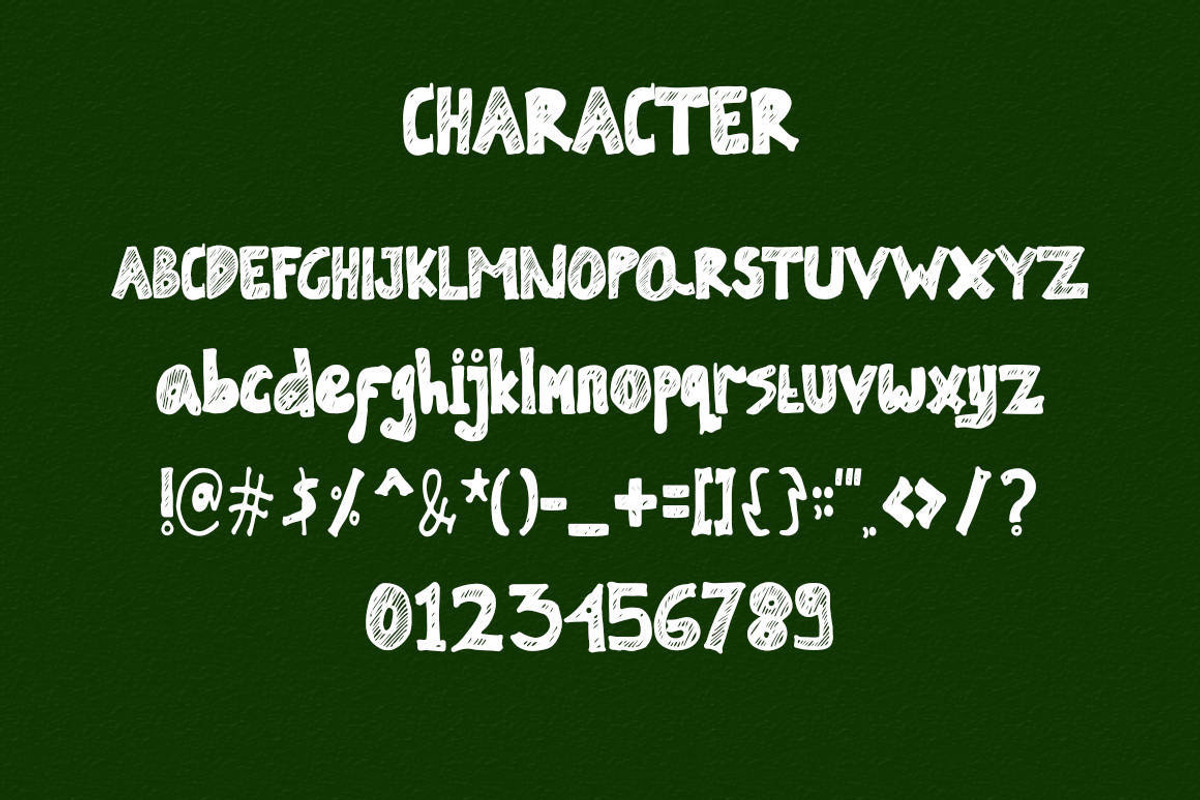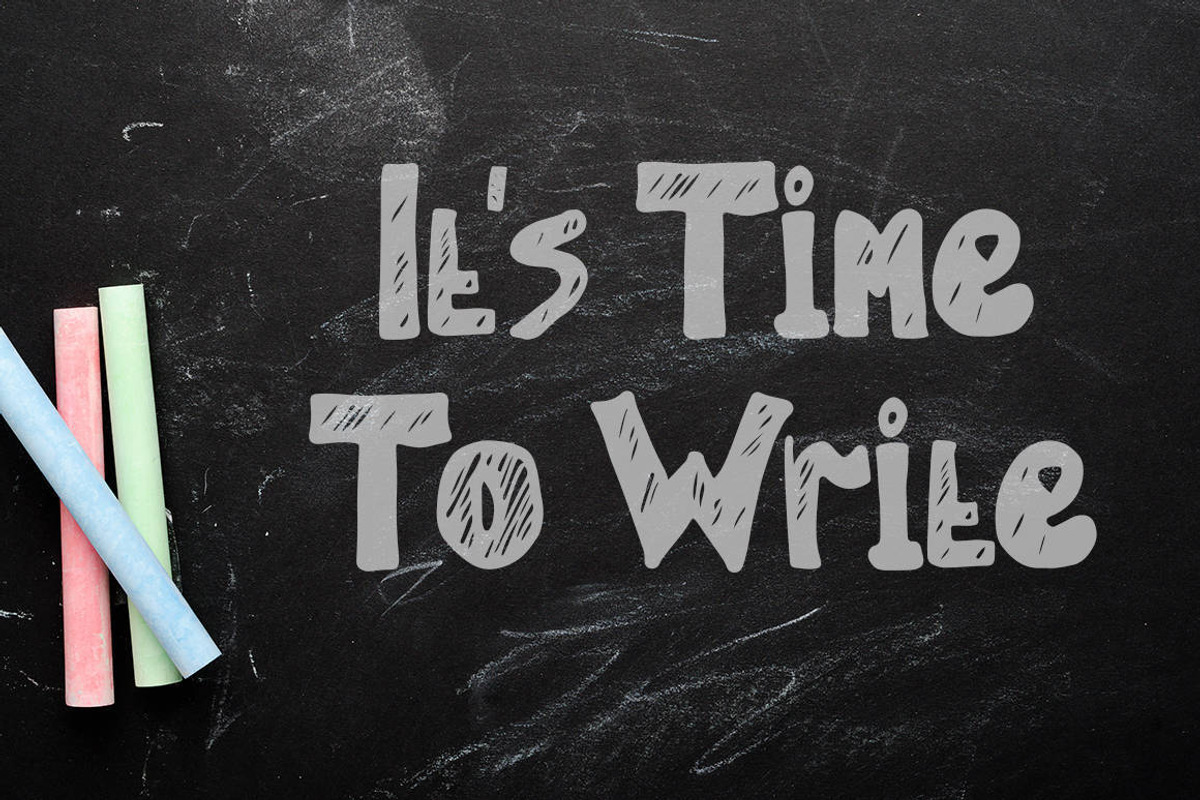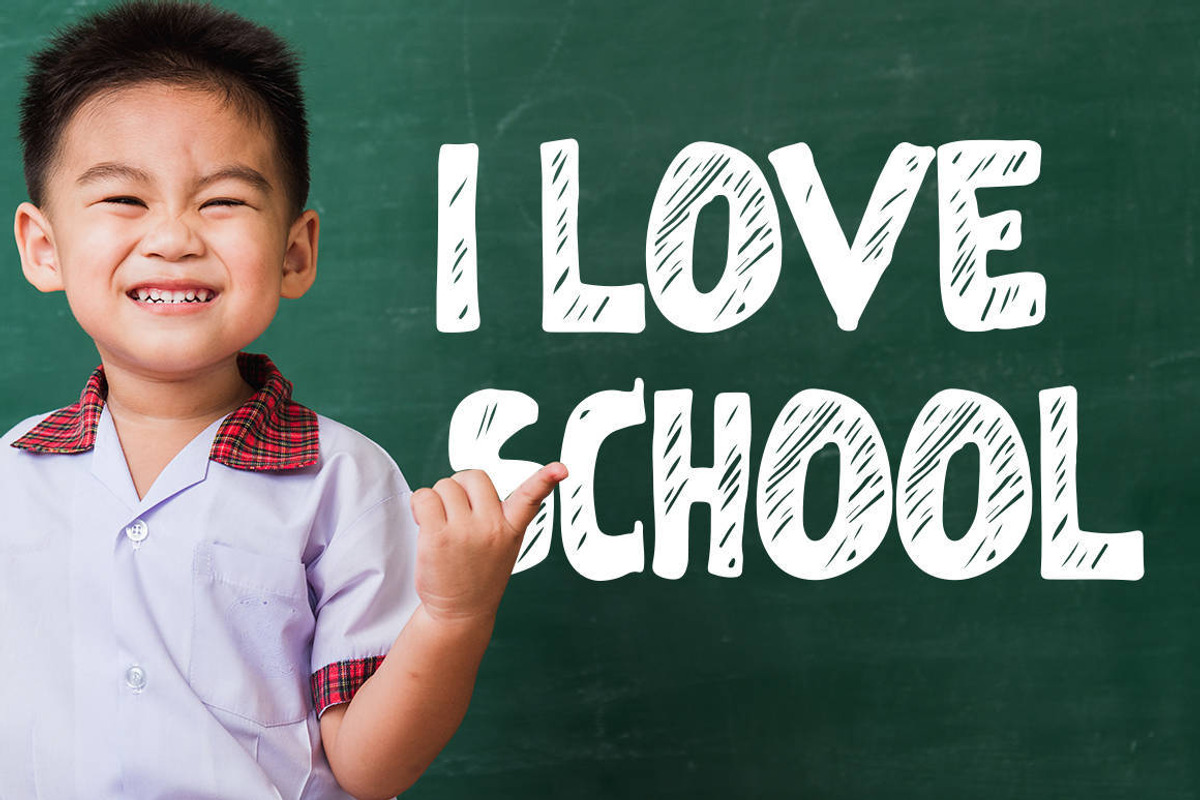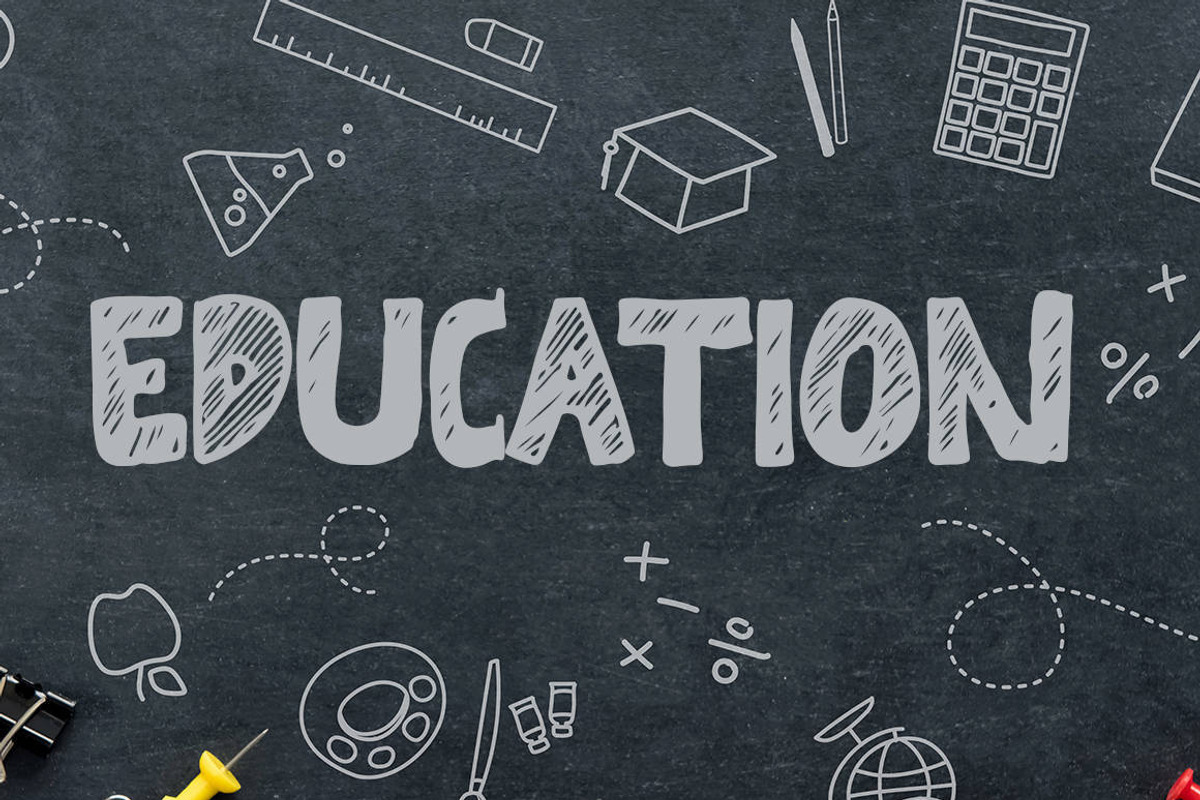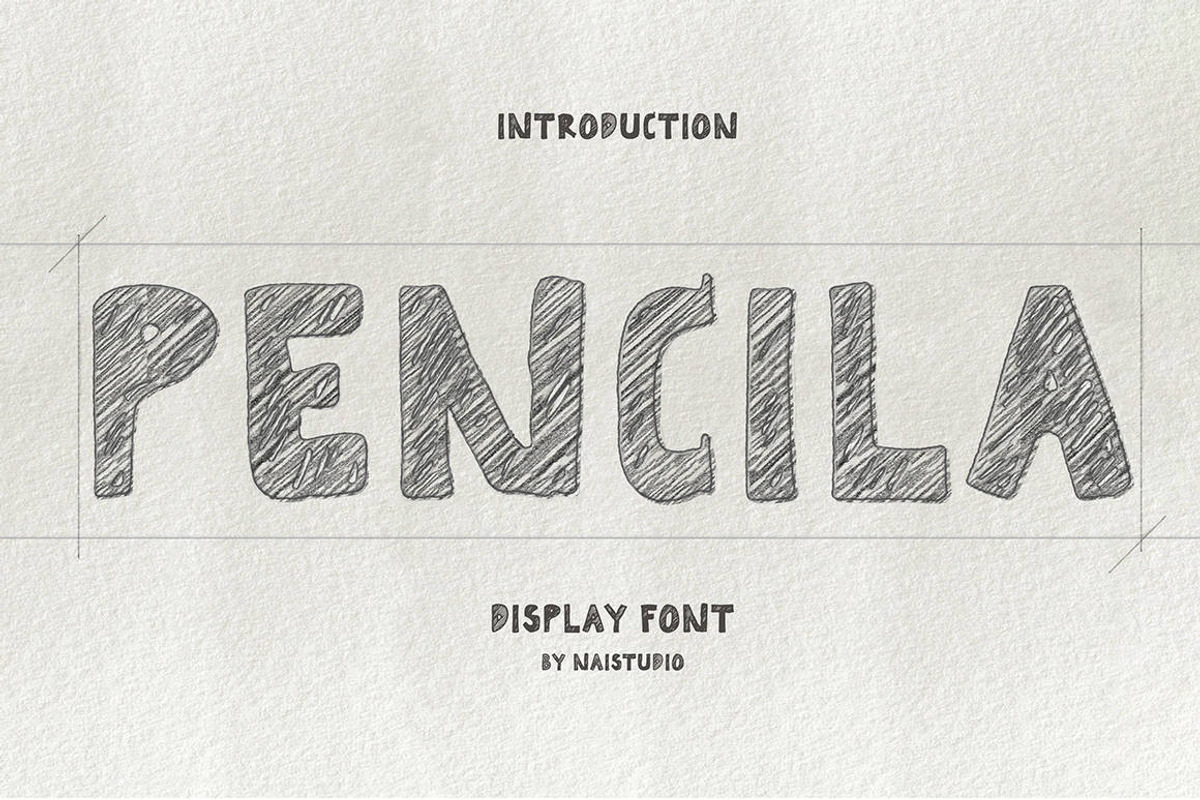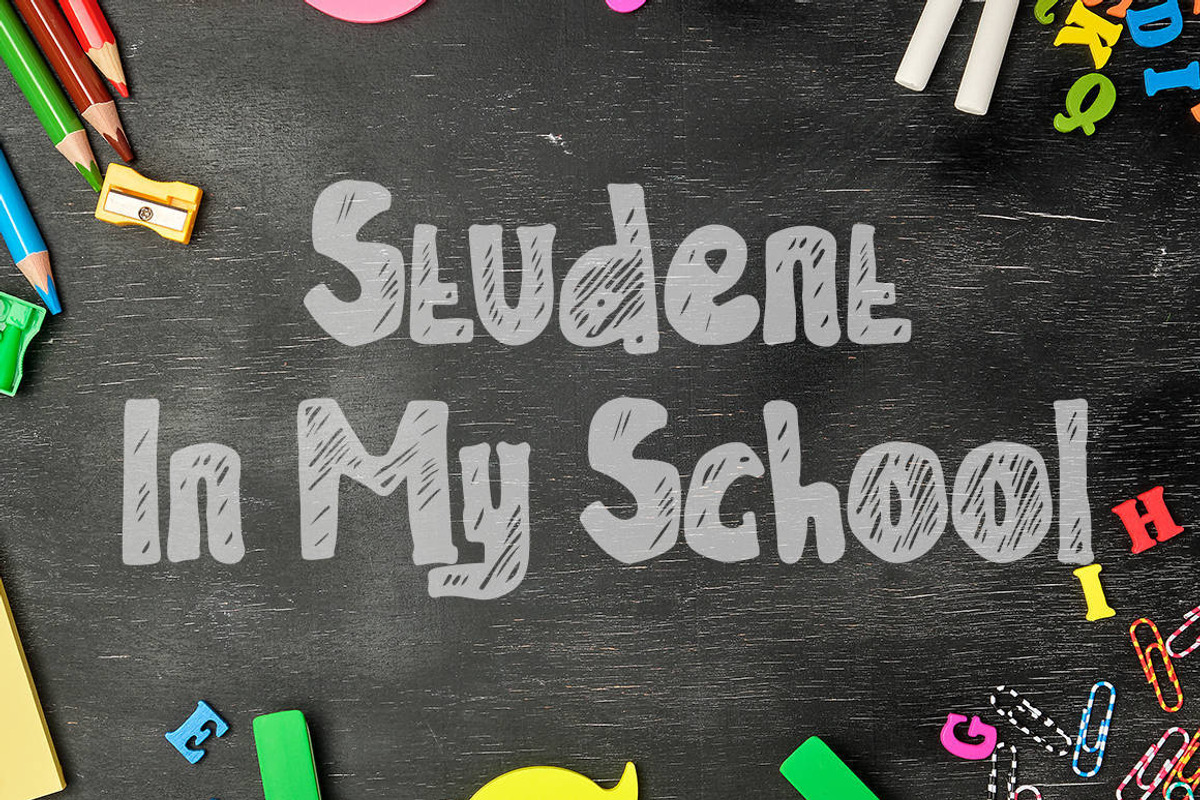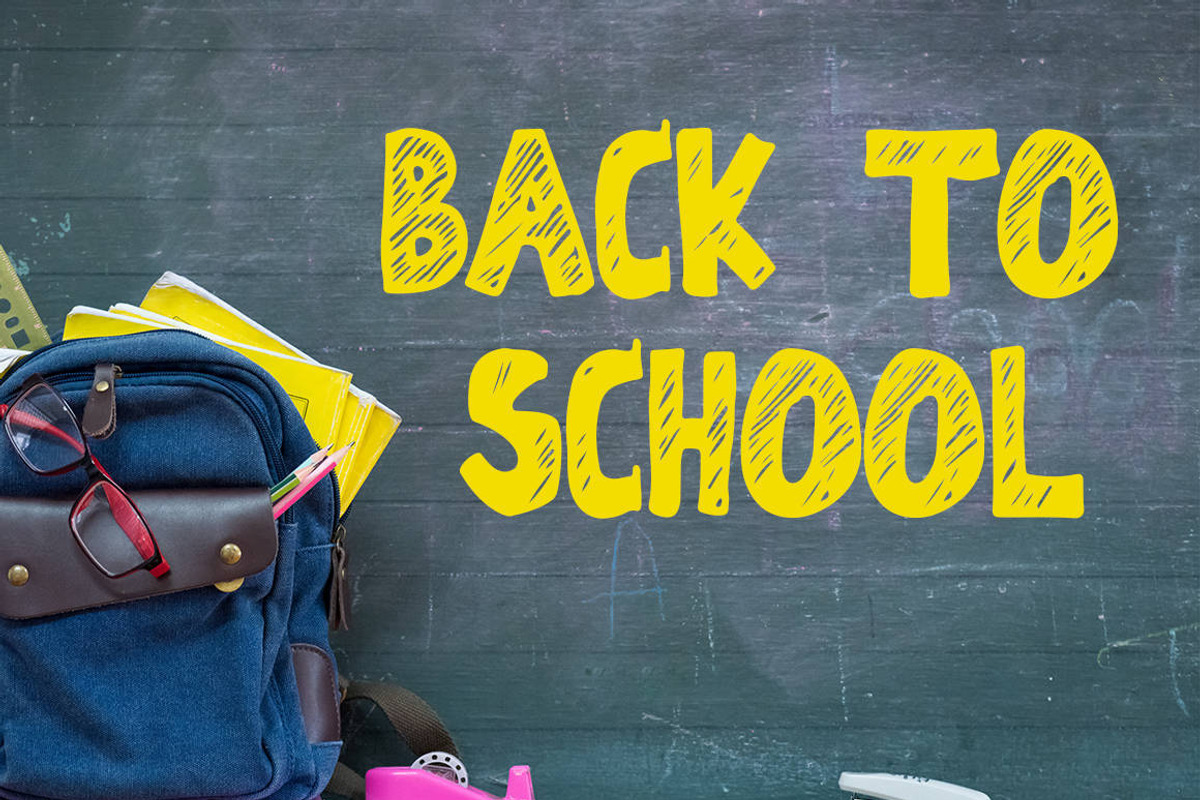
Pencila - Drawing Brush Font
Introducing Pencila - Drawing Brush Font
Pencila is a delicate, elegant and flowing handwritten font. It has beautiful and well balanced characters and as a result, it matches a wide pool of designs. Add it to your most creative ideas and notice how it makes them come alive!